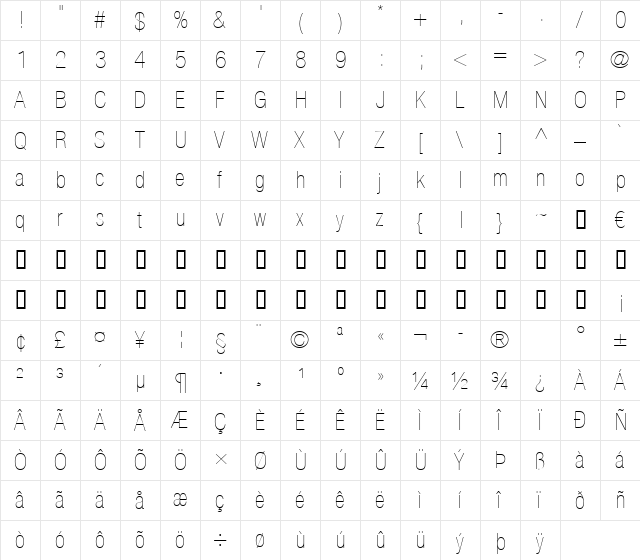
HelveticaNeue LT 27 UltLtCn Regular
| Foundry | Linotype Library GmbH |
Design Context for HelveticaNeue LT 27 UltLtCn Typeface
HelveticaNeue LT 27 UltLtCn is a composed and adaptable typeface that performs quietly and consistently across a wide range of design contexts. Its slender proportions lend an understated elegance to any composition.